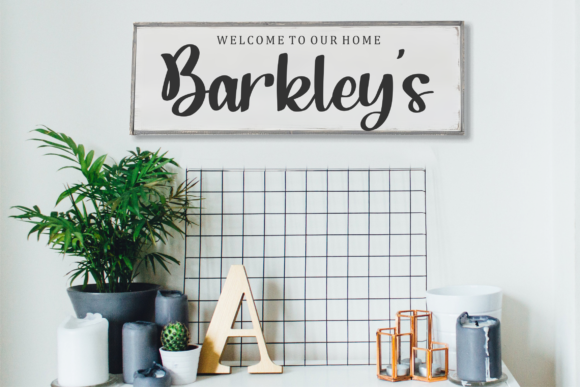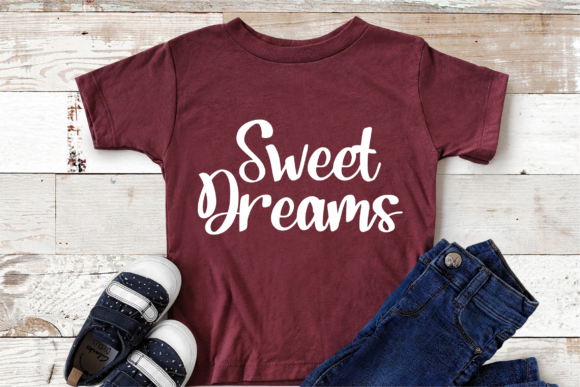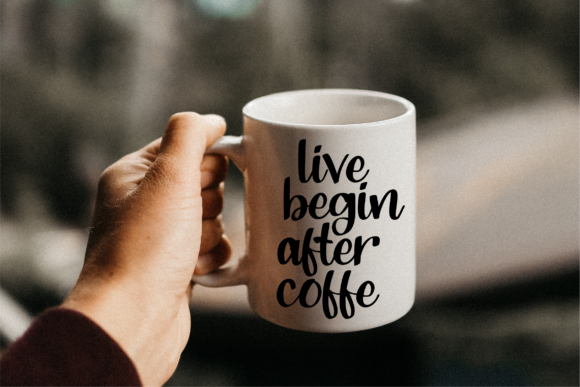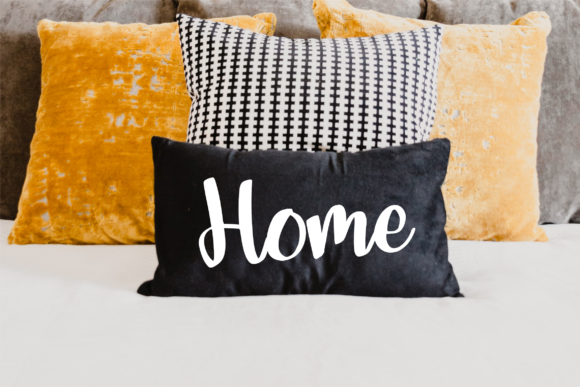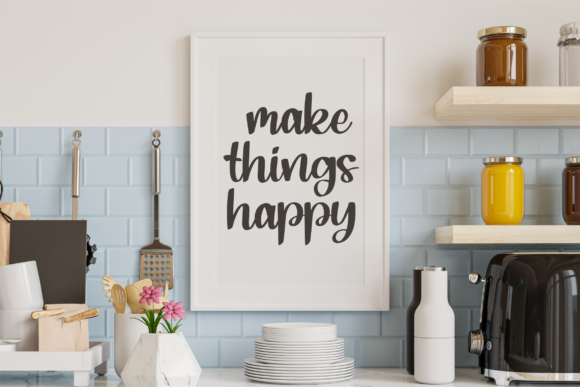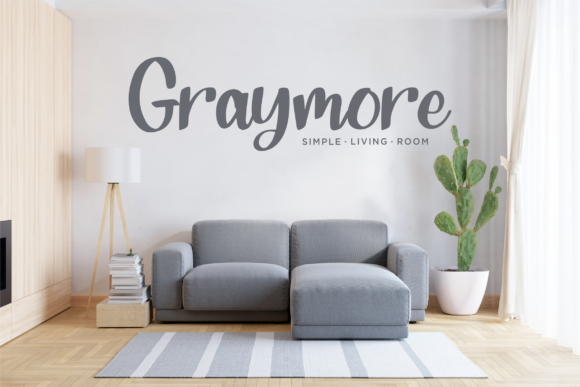
Introduction to Meadgold Font
Meadgold is a flowing handwritten font, described by an elegant touch, perfect for your favorite projects.
Key Features of Meadgold Font
Why Choose Meadgold Font?
Meadgold Font offers exceptional quality and versatility, making it a valuable addition to your design toolkit. Whether you’re creating for personal projects or commercial use, Meadgold Font delivers professional results.